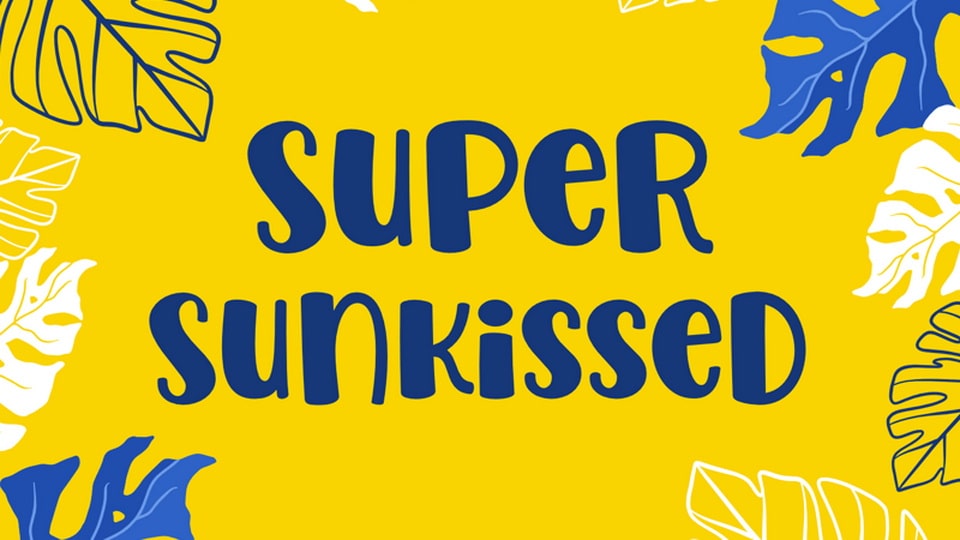
Download Super Sunkissed font, a cheerful and sunny hand-drawn typeface that radiates warmth and good vibes with its playful curves, irregular shapes, and breezy character.